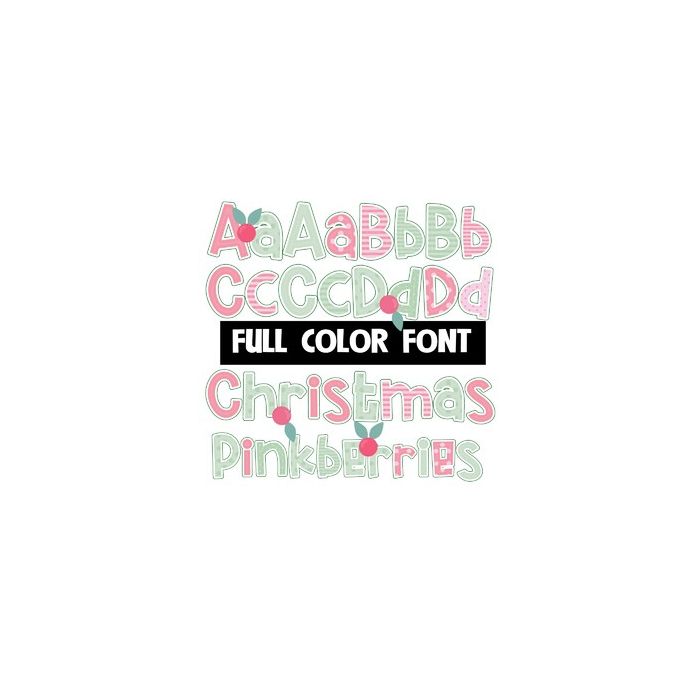
This full-color font features a Christmas, pastel color palette in multiple patterns. There is an alt upper and lowercase with additional colors that you can access through Silhouette's glyph map. Access two holly berries by typing the greater than and less than glyphs.